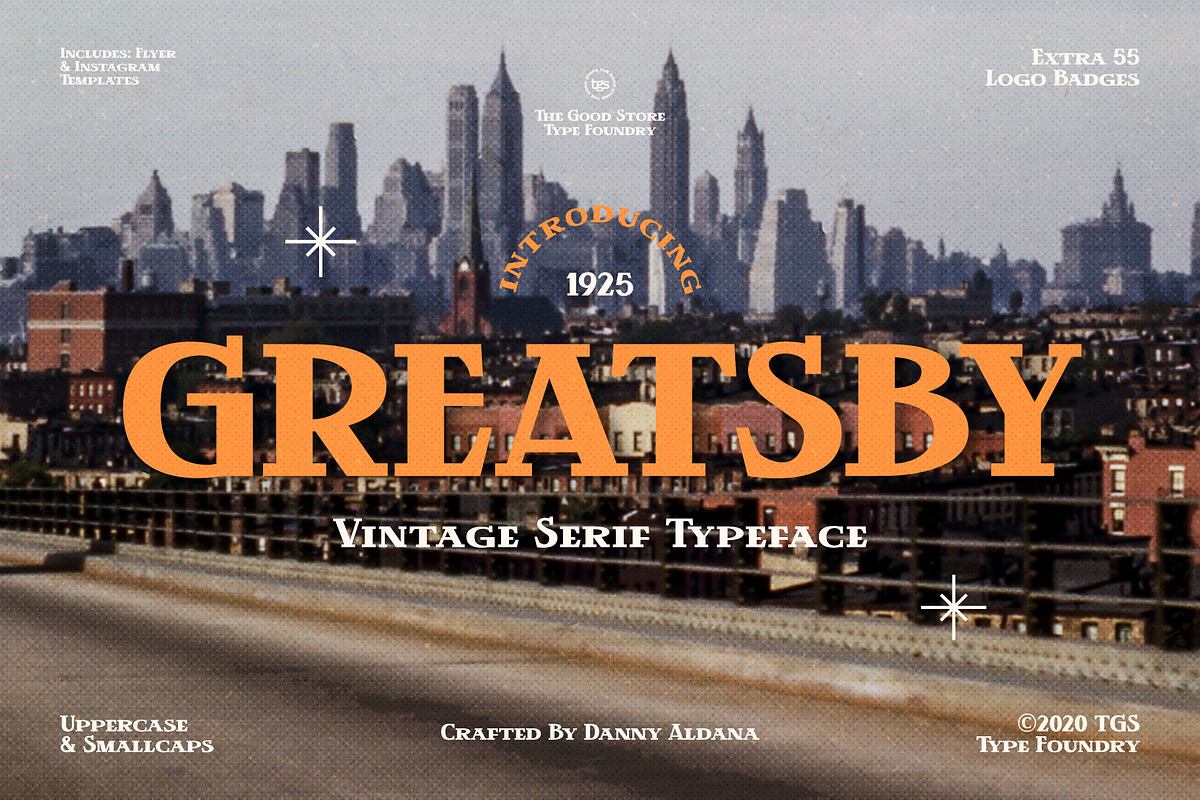
Please note that you must purchase this font for commercial use. You can download Greatsby + Extras Font for free, strictly for personal testing purposes only. Greatsby is a luxurious Art Deco–inspired display font that channels the glamour and elegance of the 1920s. With its sharp lines, geometric forms, and vintage sophistication, Greatsby + Extras Font Free Download is perfect for wedding invitations, upscale branding, Gatsby-themed events, luxury packaging, and editorial headlines.
The font is often accompanied by elegant extras such as decorative elements, borders, or stylistic alternates to enhance your designs with true vintage flair. It includes uppercase letters, numerals, punctuation, and multilingual support—ensuring global design versatility.
Whether you're creating a roaring twenties party invite or high-end visual branding, Greatsby brings timeless class and ornamental beauty.